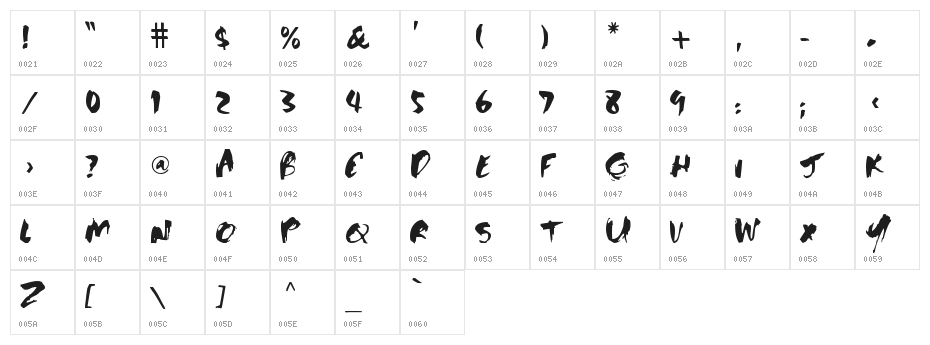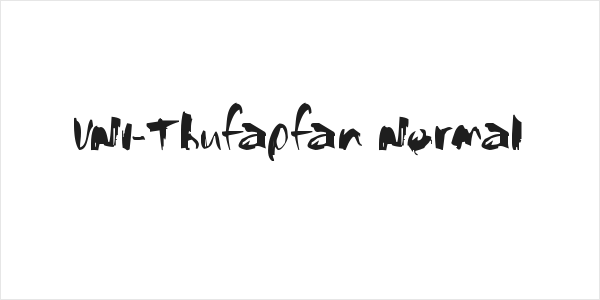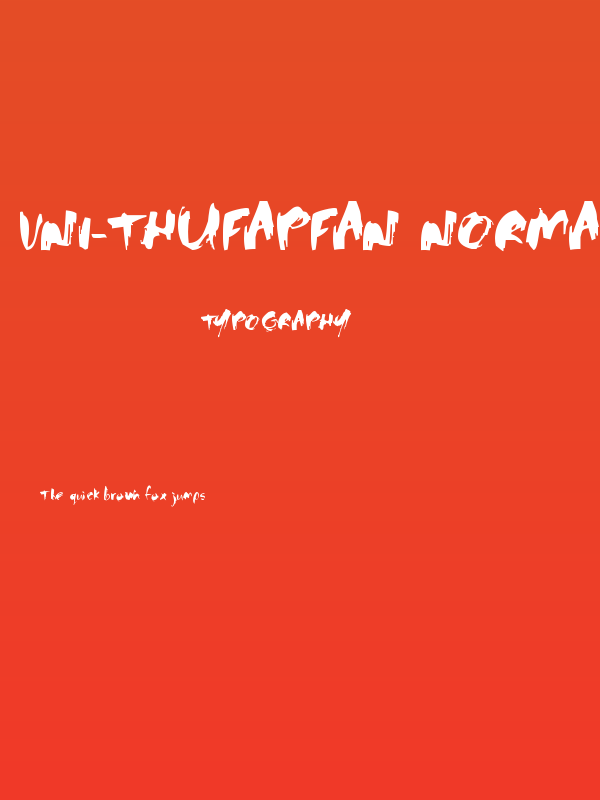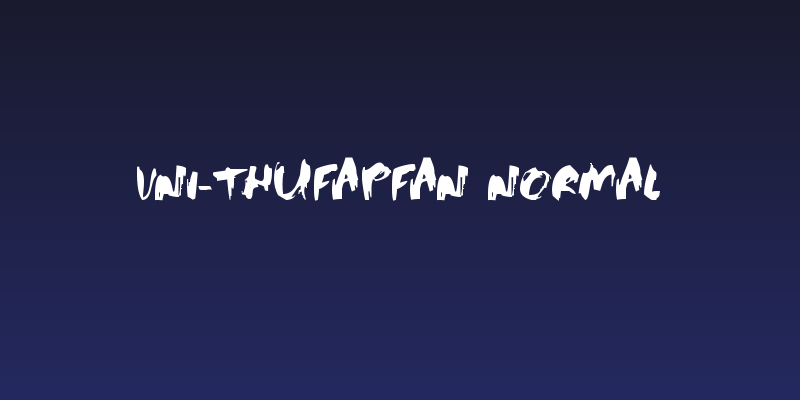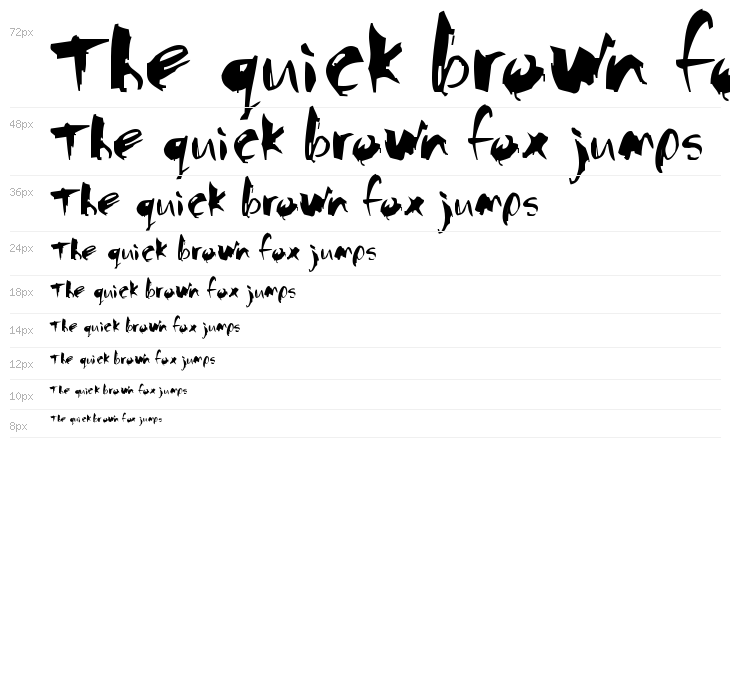
VNI-Thufapfan Normal Font
VNI-Thufapfan Normal Description
This font features a bold and expressive style with a brush-like appearance, giving it a dynamic and artistic feel. The characters are irregular and have a hand-painted look, with varying stroke thicknesses that add to its energetic and spontaneous character. The uppercase and lowercase letters maintain a consistent style, while the numbers and special characters complement the overall aesthetic. This font is ideal for projects that require a creative and informal touch, such as artistic posters, event flyers, or branding for creative industries.
| Overall Style | Artistic, Expressive |
| Proposed Projects | Ideal for artistic posters, event flyers, creative branding, and expressive design projects. |